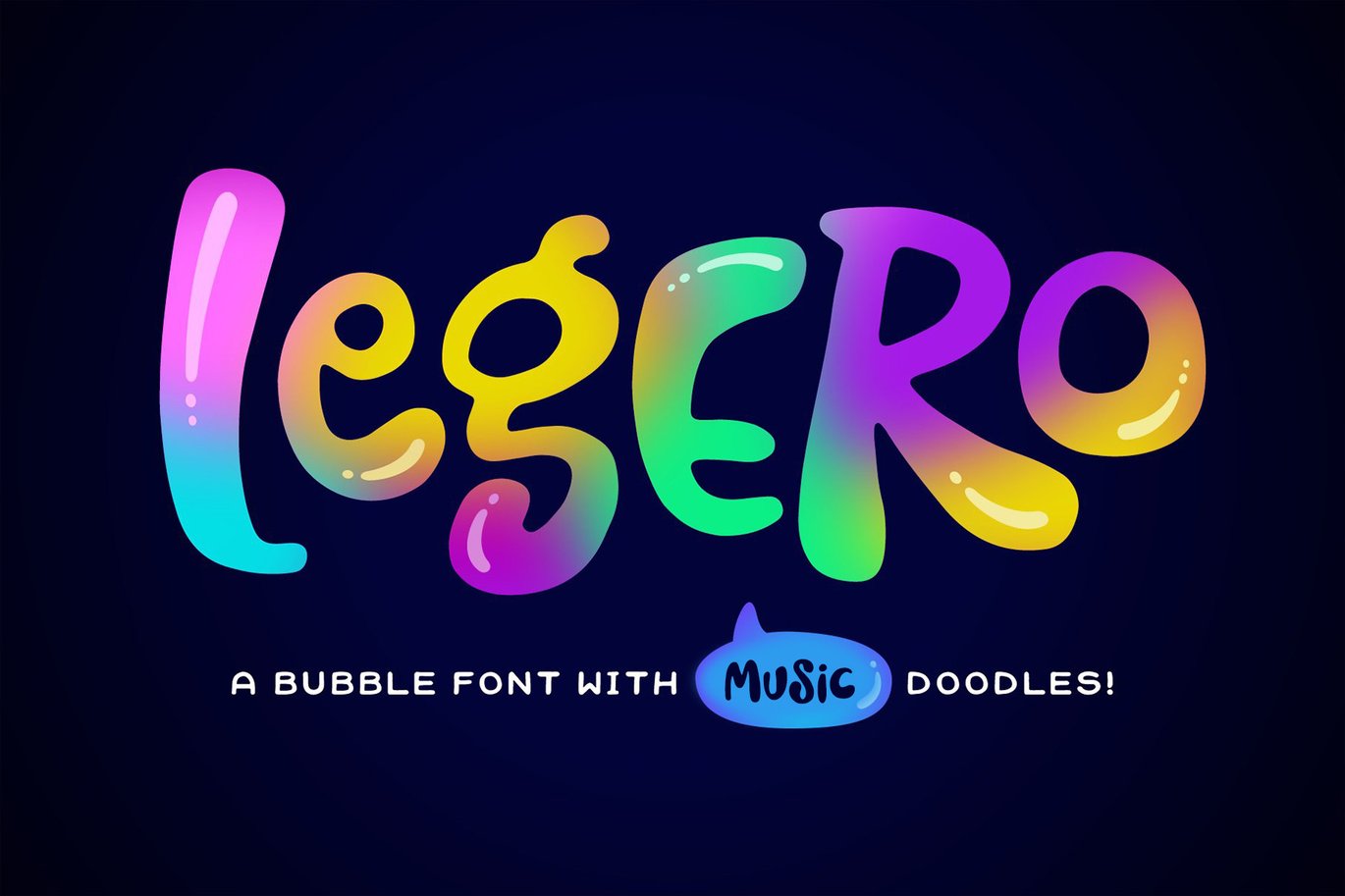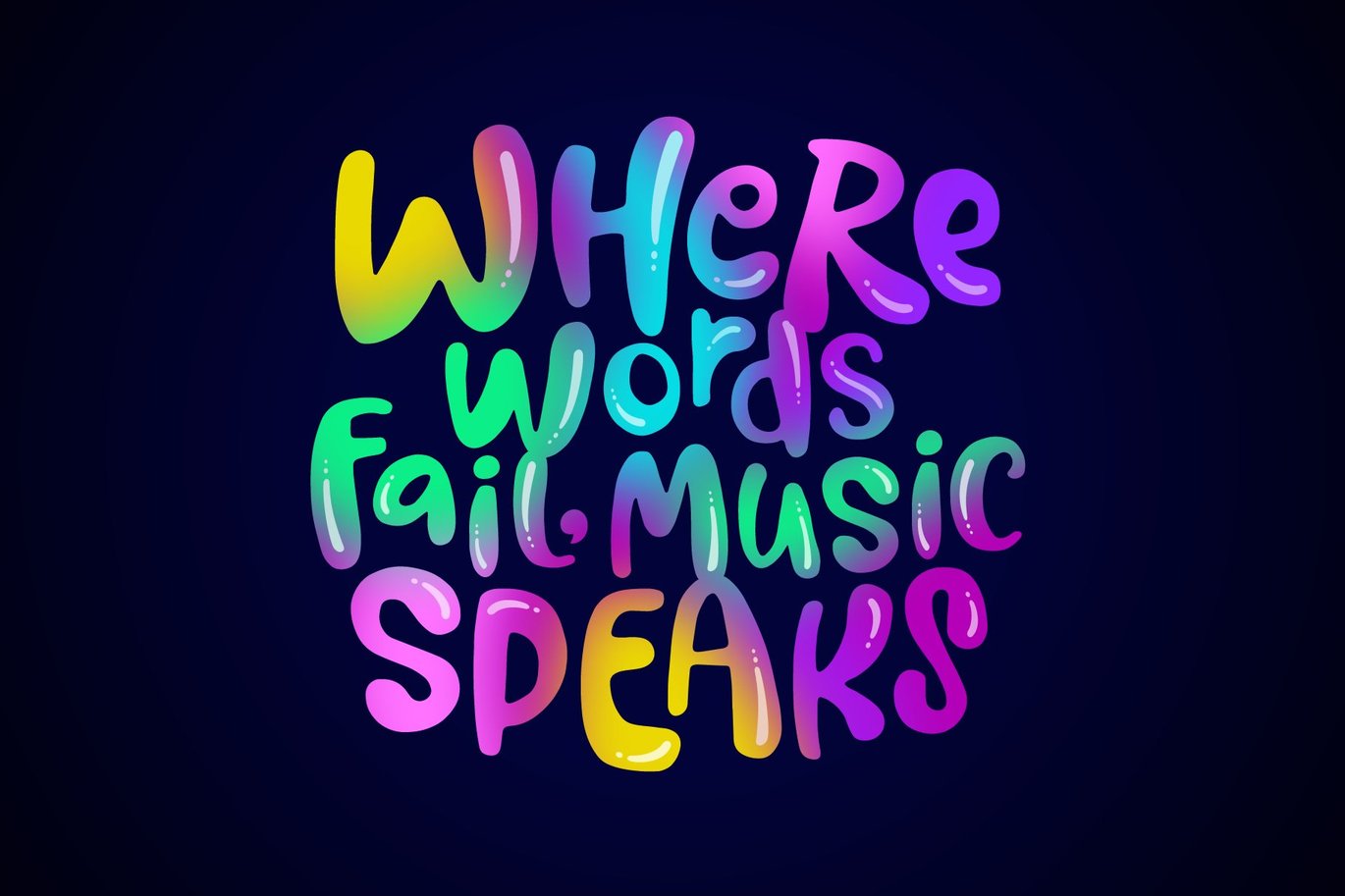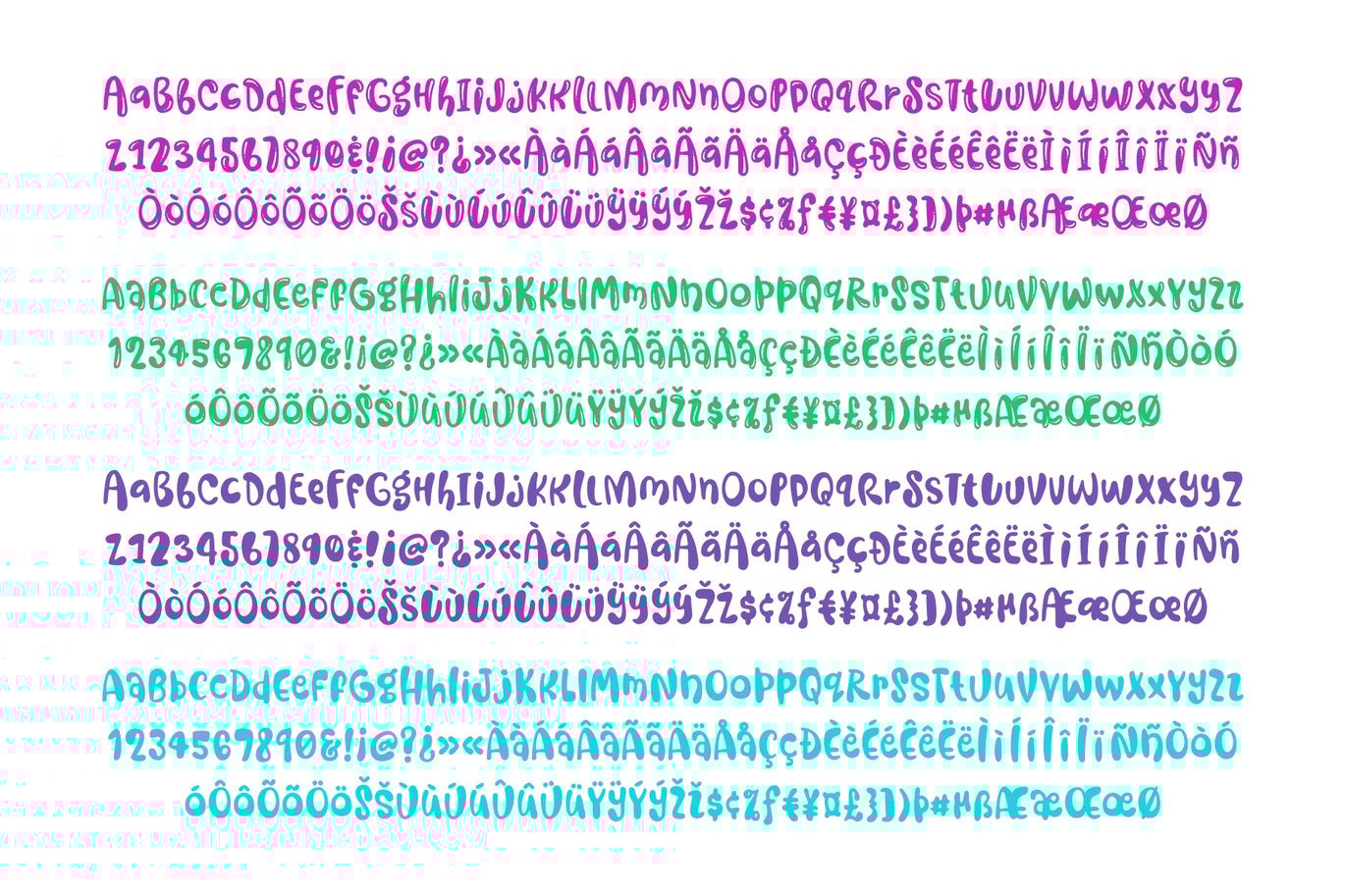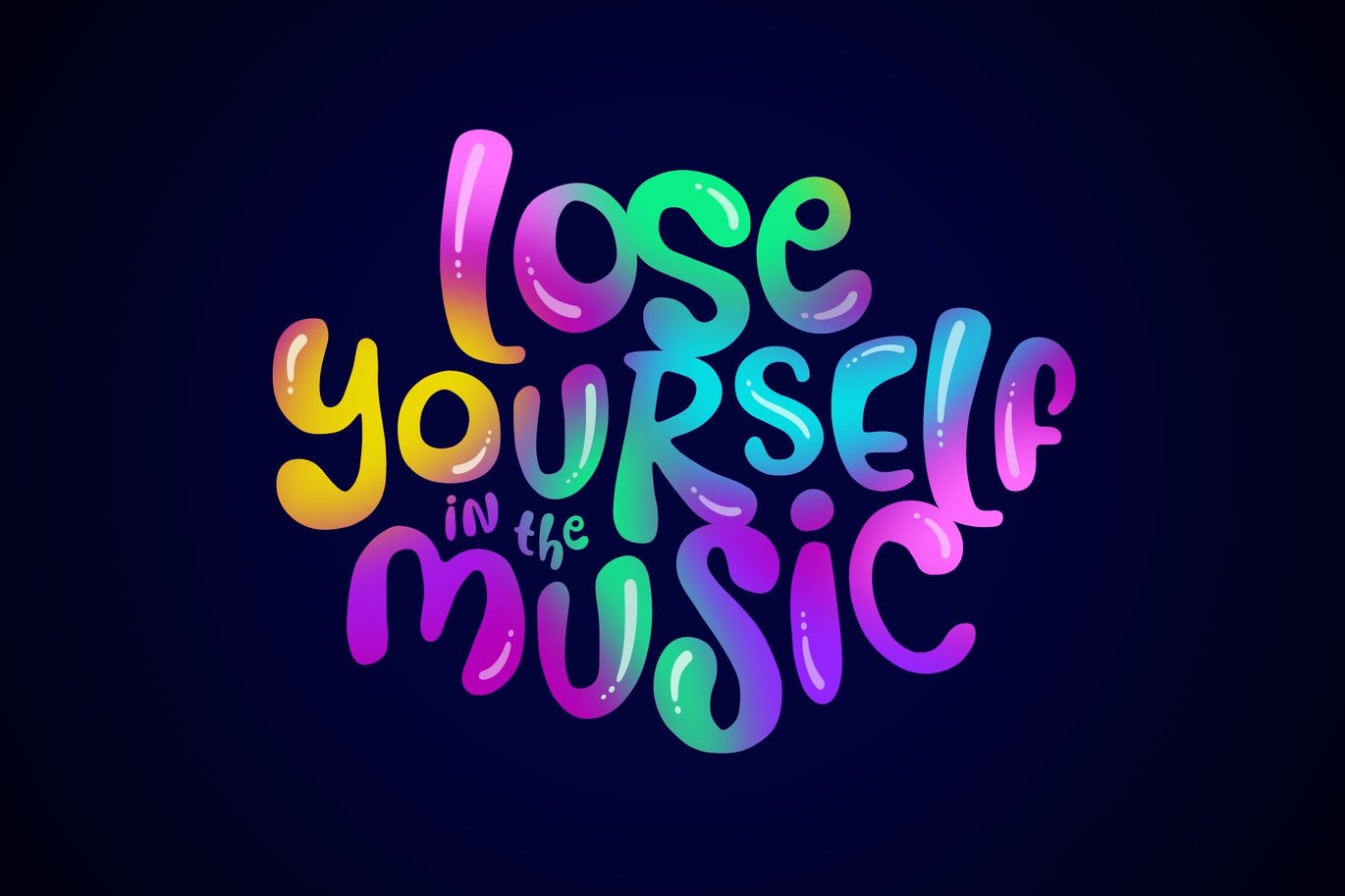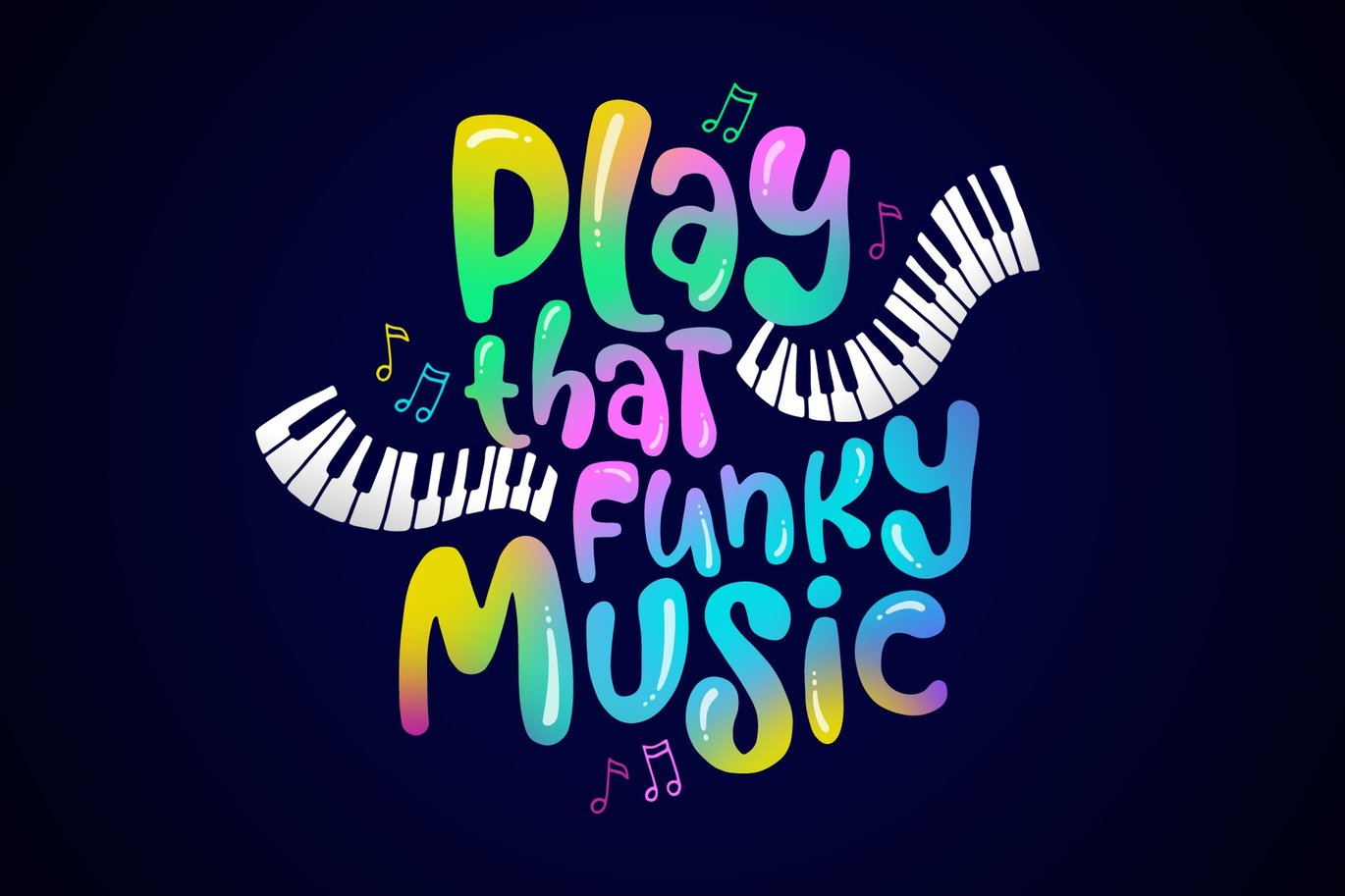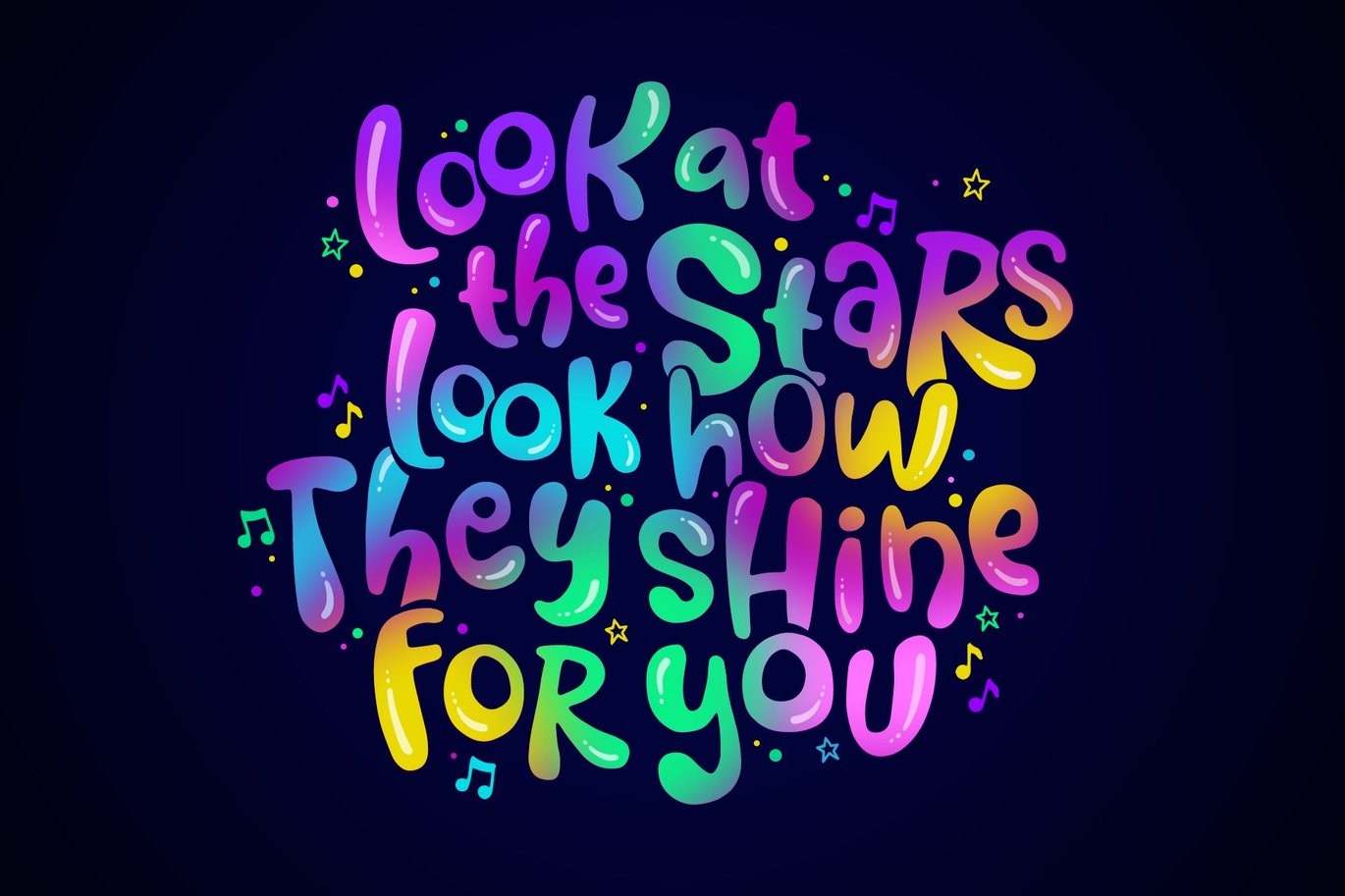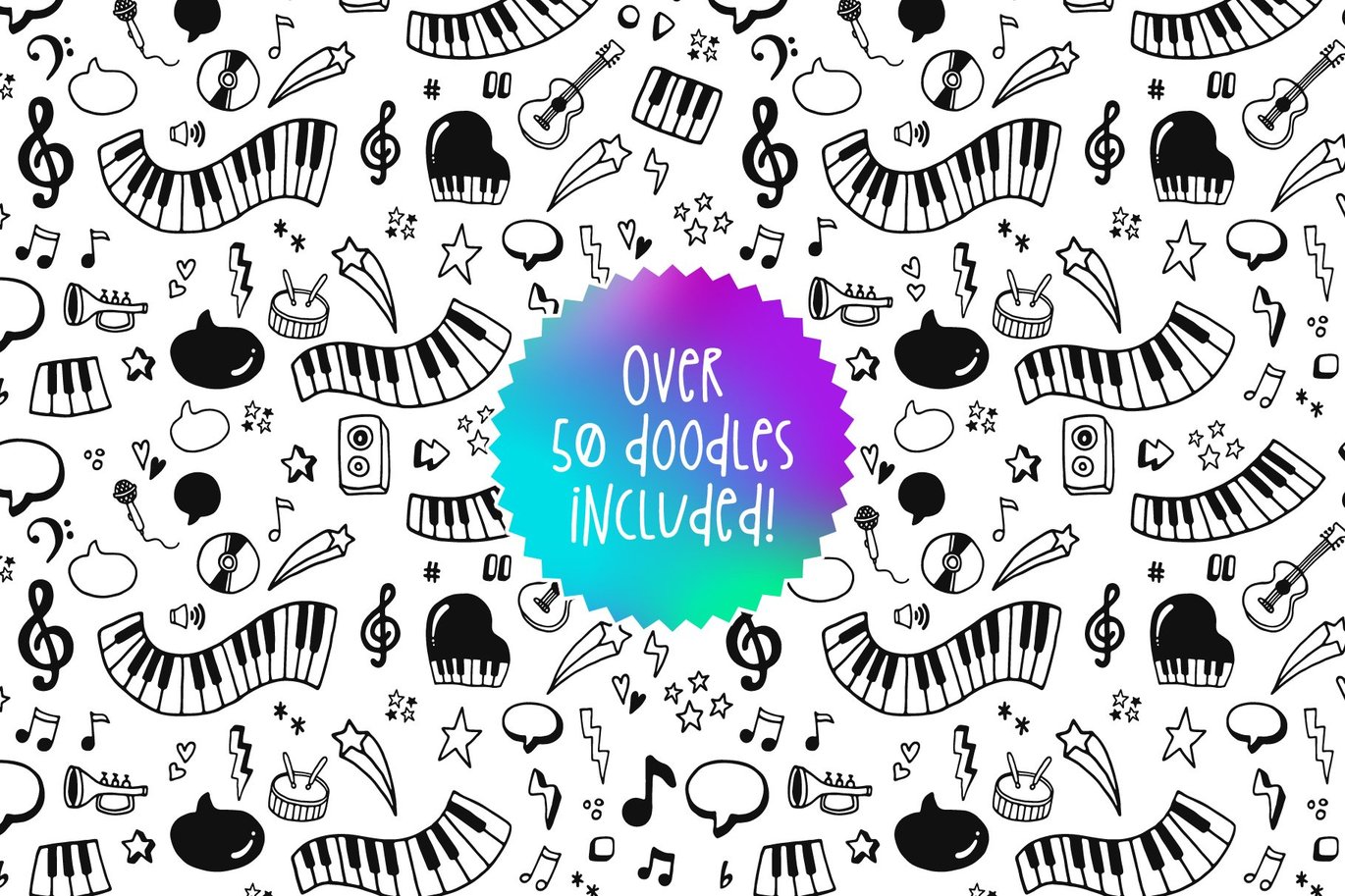
Legero Font
Legero is a fun, retro, bubble-style font that comes in both solid and shiny versions. It also comes with a full set of alternate characters to mix and match and give your projects a unique feel. As well as 52 music-themed doodles that can be accessed using uppercase and lowercase letters with the Legero Doodles font.